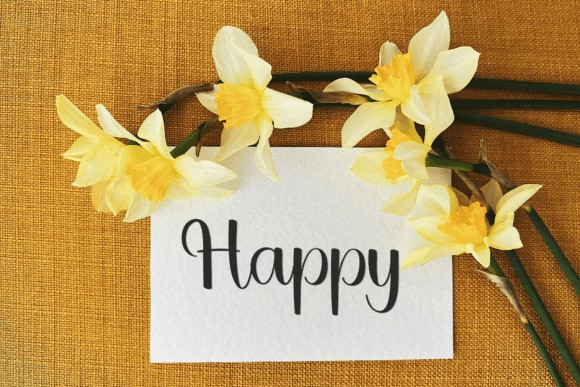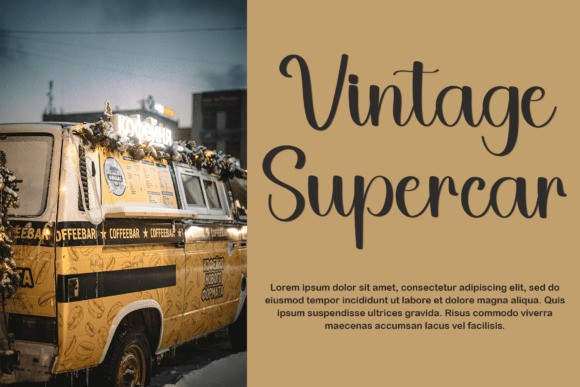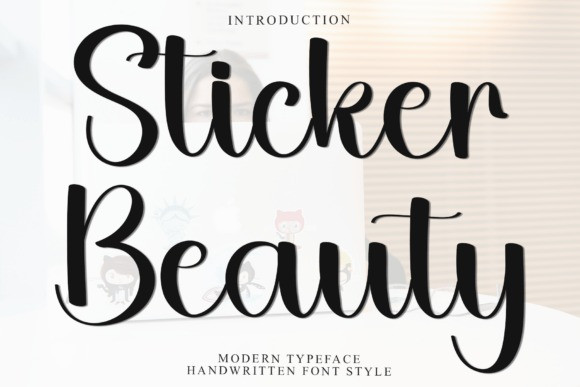
Sticker Beauty Font
Sticker Beauty Font is a delicate, elegant and flowing handwritten font. It has beautiful and well balanced characters and as a result, it matches a wide pool of designs. Add it to your most creative ideas and notice how it makes them come alive!